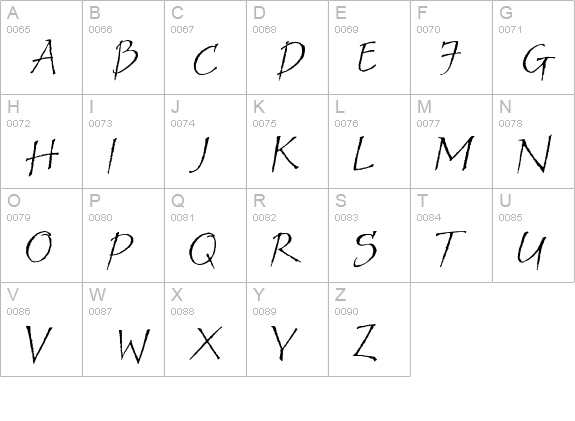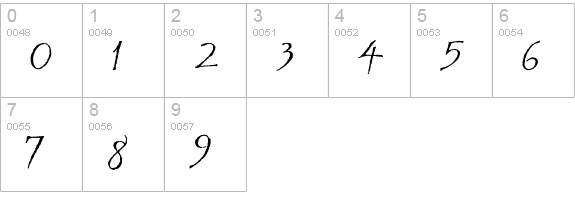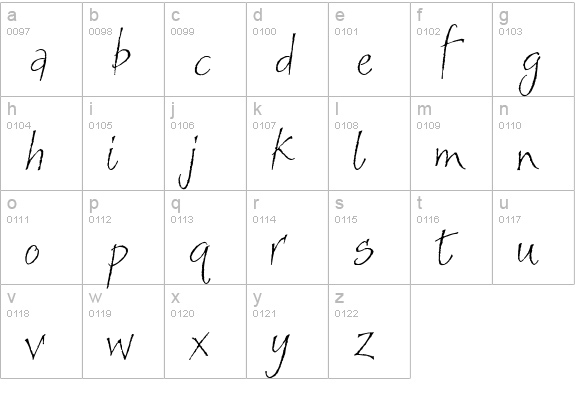
Sandals Font Details
Introducing Sandals font, a versatile and modern typeface that exudes elegance and sophistication. This beautifully crafted font is perfect for a wide range of design projects, from branding and packaging to social media graphics and invitations. The clean lines and stylish curves of Sandals font will bring a touch of refinement to any design. What's even better is that Sandals font is available for free download at FontsMarket.com. Now you can add this stunning font to your collection without having to spend a dime. Don't miss out on the opportunity to elevate your designs with the timeless beauty of Sandals font. Download it today and let your creativity soar!